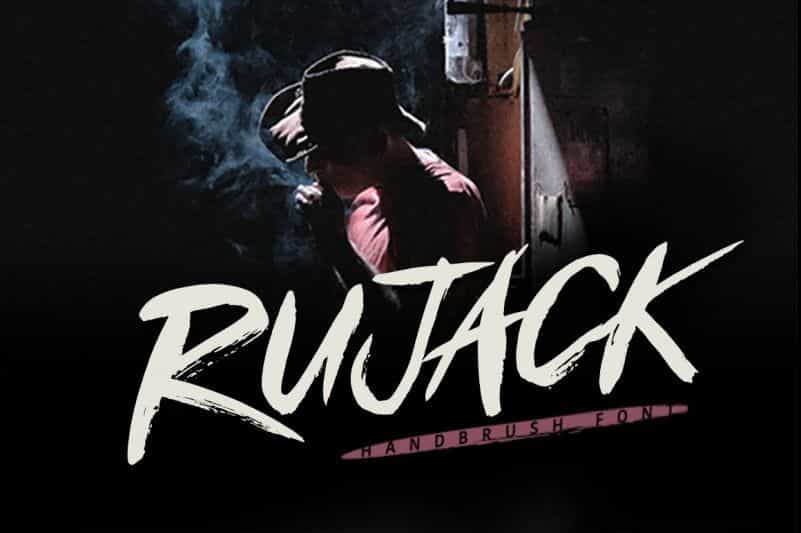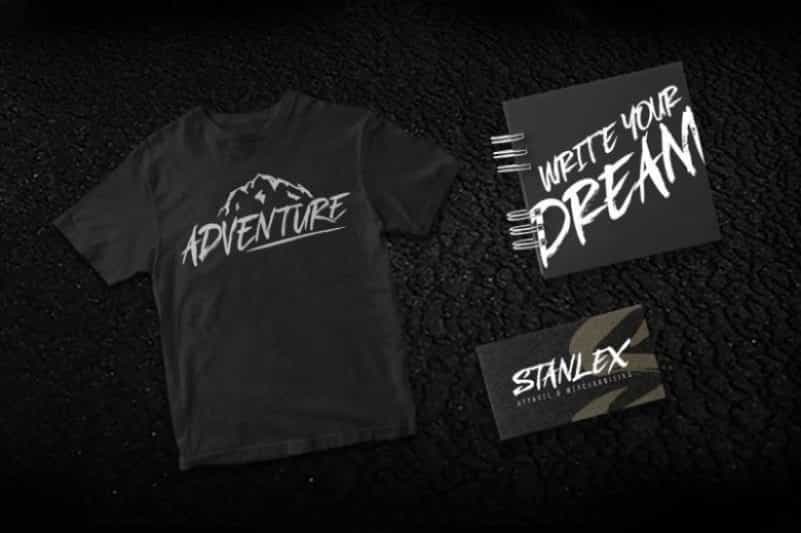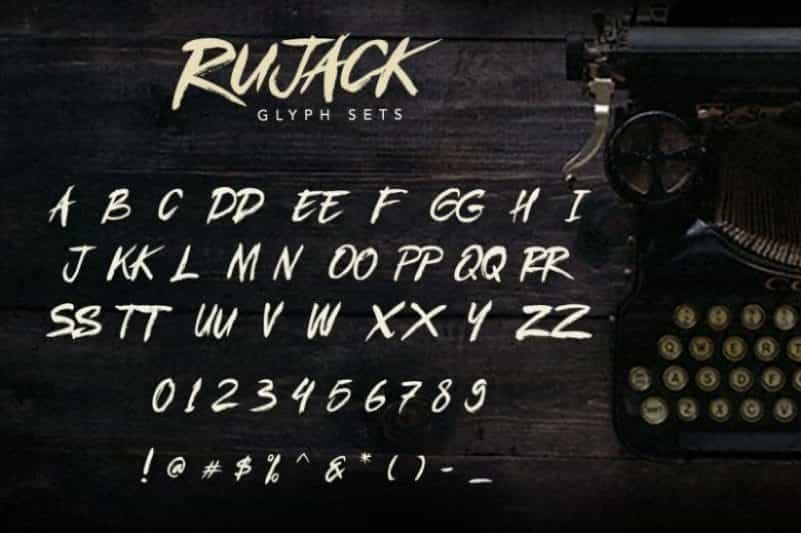
Rujack a handwritten font with the high detailed dry brush texture. Rujack can be used in a great variety of projects, from modern to classic branding style. It also offers an alternative characters set that will completely change the look of your design.